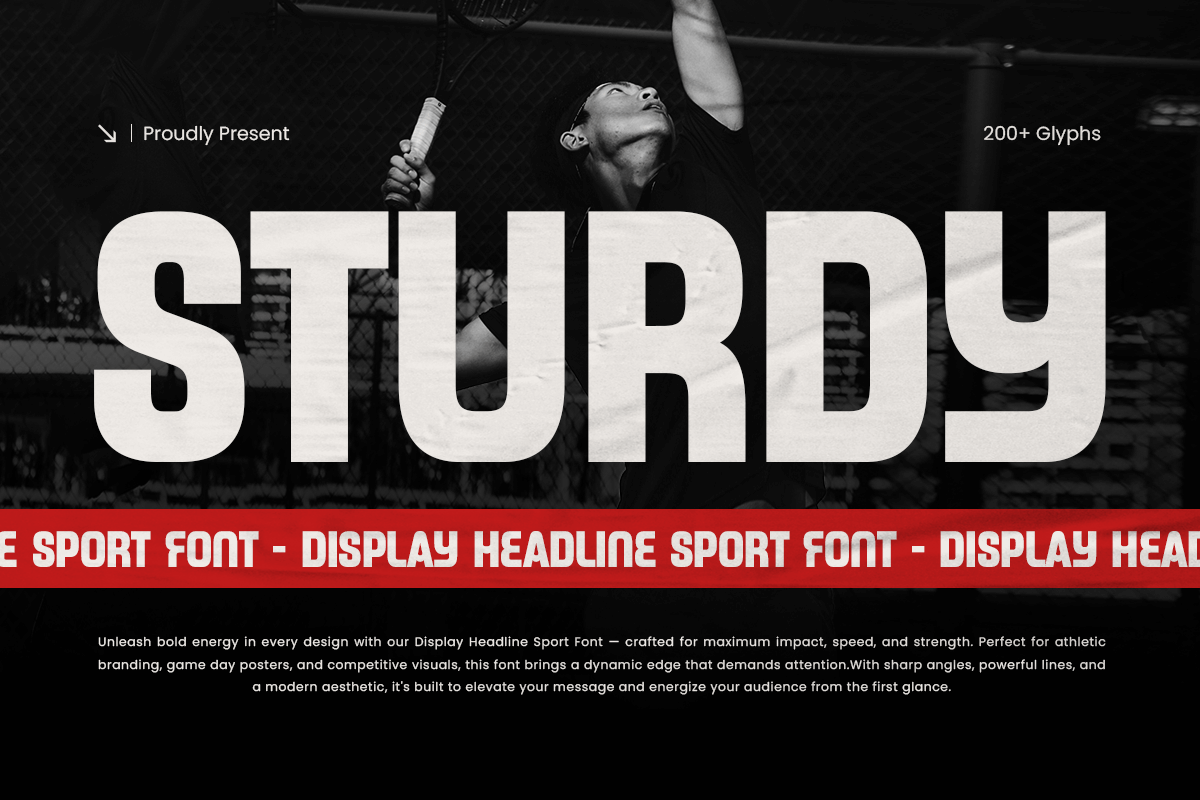
Sturdy
-Display Headline Sport Font
Sturdy – Display Headline Sport Font
STURDY is a bold display headline font designed for sports, events, and high-impact branding. Its strong, athletic letterforms make headlines, logos, and posters stand out with energy and professionalism.
With a modern and dynamic style, STURDY is perfect for sports teams, competitions, and active lifestyle projects, giving your designs a confident and powerful presence.
STURDY – Display Headline Sport Font Features
• Bold and athletic character set
• Ideal for sports, events, and display headlines